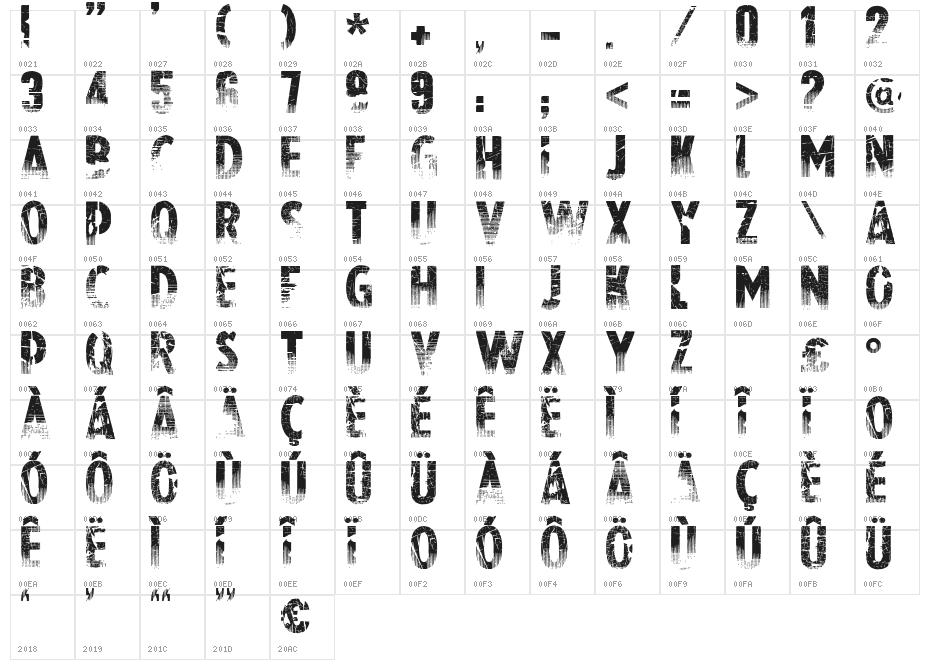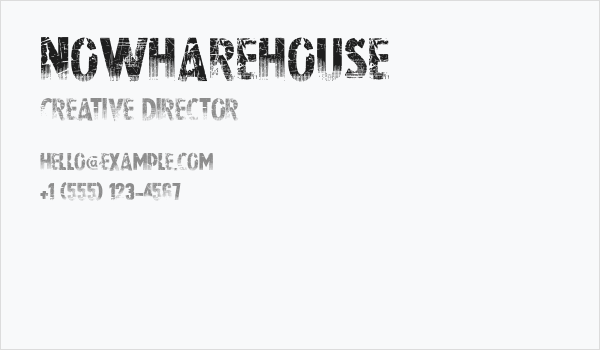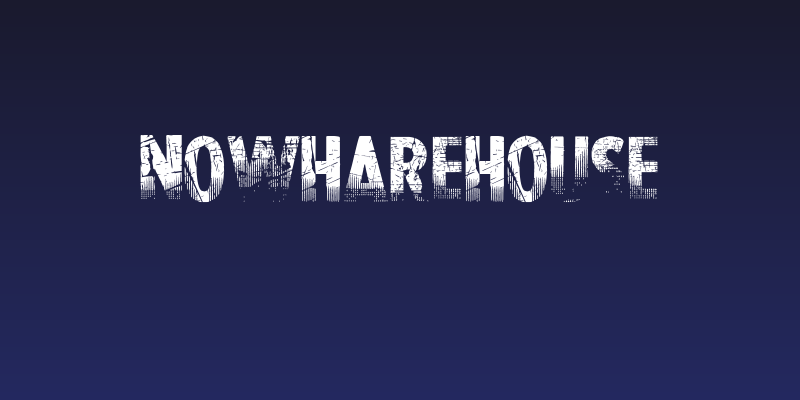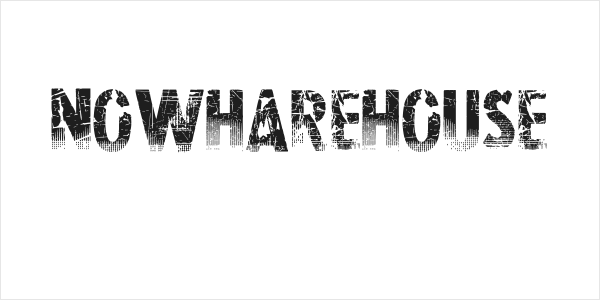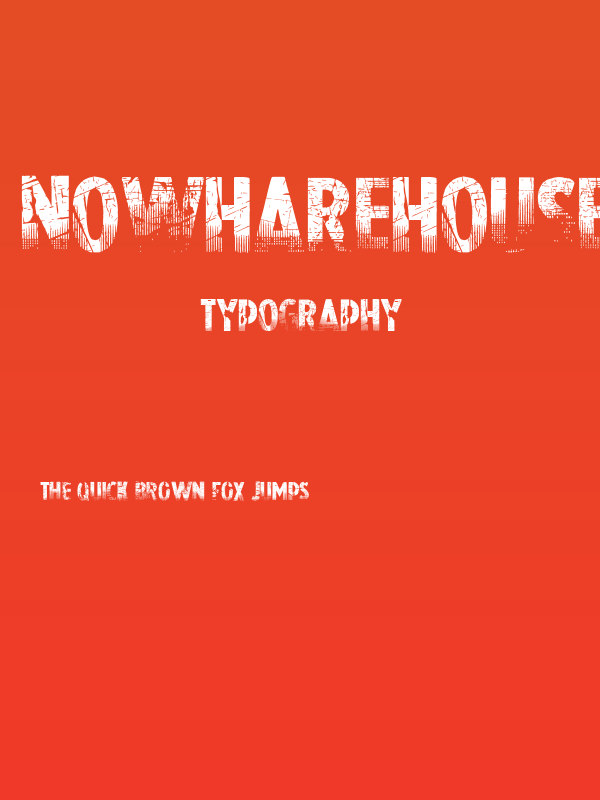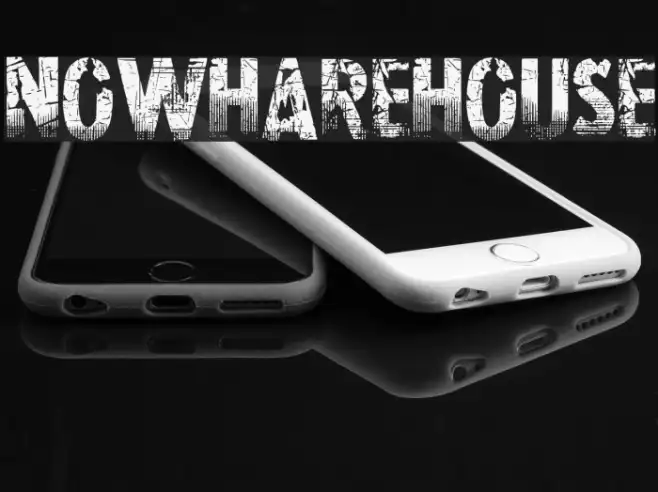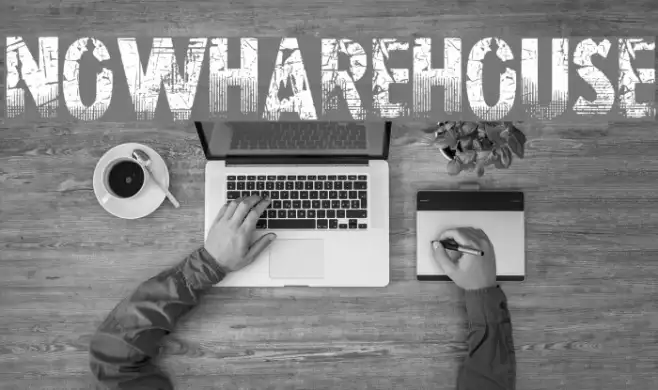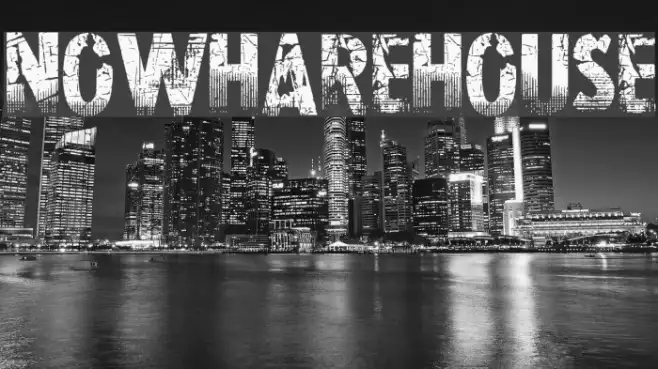
Nowharehouse Font
Nowharehouse Description
This font features a distressed, grunge style with a bold and impactful appearance. The characters are heavily textured, giving them a worn and rugged look, reminiscent of urban street art or industrial design. The uppercase and lowercase letters maintain a consistent height and width, creating a uniform appearance despite the chaotic texture. Numbers and special characters follow the same design principles, ensuring a cohesive look across all elements. The font's unique style makes it stand out, perfect for projects that require a strong visual impact.
| Overall Style | Grunge, Industrial |
| Proposed Projects | Ideal for album covers, posters, streetwear branding, and urban-themed designs. |